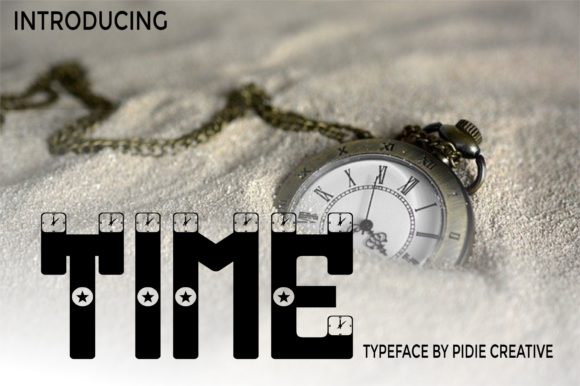
Time Font
Font Name : Time Font
Author : Pidie_Creative
Embark on a journey through time with Time Font, a masterpiece of decorative artistry that captures the essence of elegance and intricacy. Created by the visionary minds at Pidie_Creative, Time Font is not just a collection of characters; it's an invitation to explore a world where time stands still, yet every second is meticulously crafted.
With each letter adorned with intricate clock ornaments, Time Font transcends the boundaries of ordinary typography, transforming your designs into captivating timepieces. The unique time display on each character adds a touch of whimsy and intrigue, inviting viewers to delve deeper into the depths of your creative vision.
Time Font's decorative nature lends itself seamlessly to a myriad of design applications. From mesmerizing song titles that dance across the screen to captivating logos that leave a lasting impression, Time Font possesses the versatility to elevate your projects to new heights of sophistication.
Imagine the allure of a song title adorned with Time Font, its clock ornaments ticking away in perfect harmony with the rhythm of the music. The visual impact of this font is undeniable, drawing listeners in and captivating their attention from the very first note.
Or envision a logo adorned with Time Font, its intricate details symbolizing the company's rich history and unwavering dedication to excellence. The clock ornaments, with their ever-changing displays, hint at the company's dynamic nature and its ability to adapt to the ever-evolving landscape of business.
Time Font is not just a font; it's an experience, a conversation piece that sparks curiosity and invites admiration. Its intricate details and ornamental flourishes transform ordinary text into captivating works of art, leaving a lasting impression on all who encounter it.
So, embrace the allure of Time Font and let your creativity soar to new heights. With this extraordinary font at your fingertips, the possibilities are boundless. Dare to be different, dare to stand out, and let Time Font guide you on a journey through the annals of design excellence.